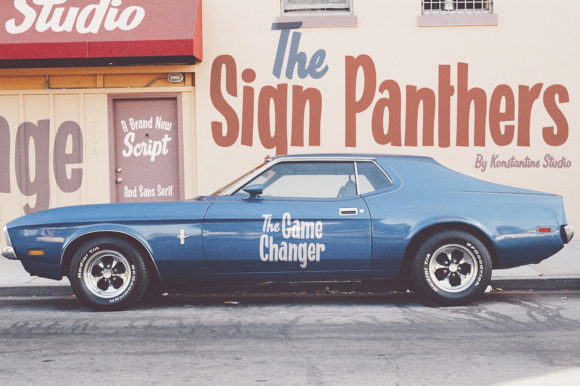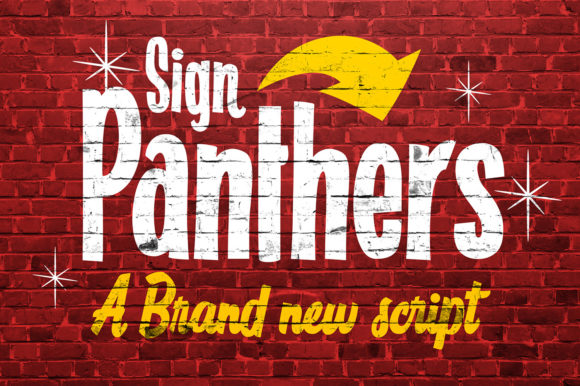
About Sign Panthers Font
Sign Panthers is a gorgeous and bold handwritten font, crafted to give your headlines and logotype projects a retro touch. This font reads as strong, confident, and dynamic and can add tons of nostalgic character to your designs.